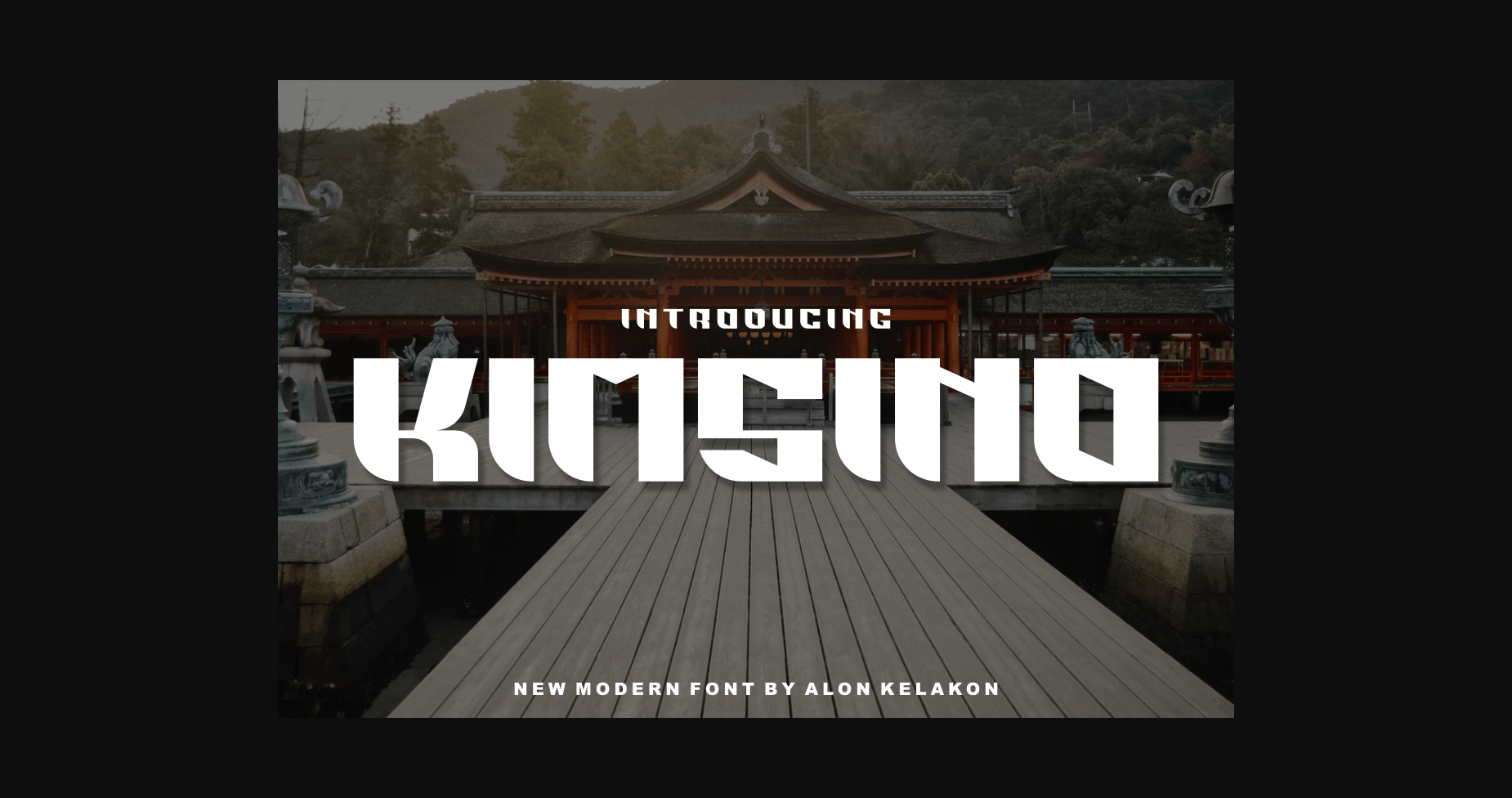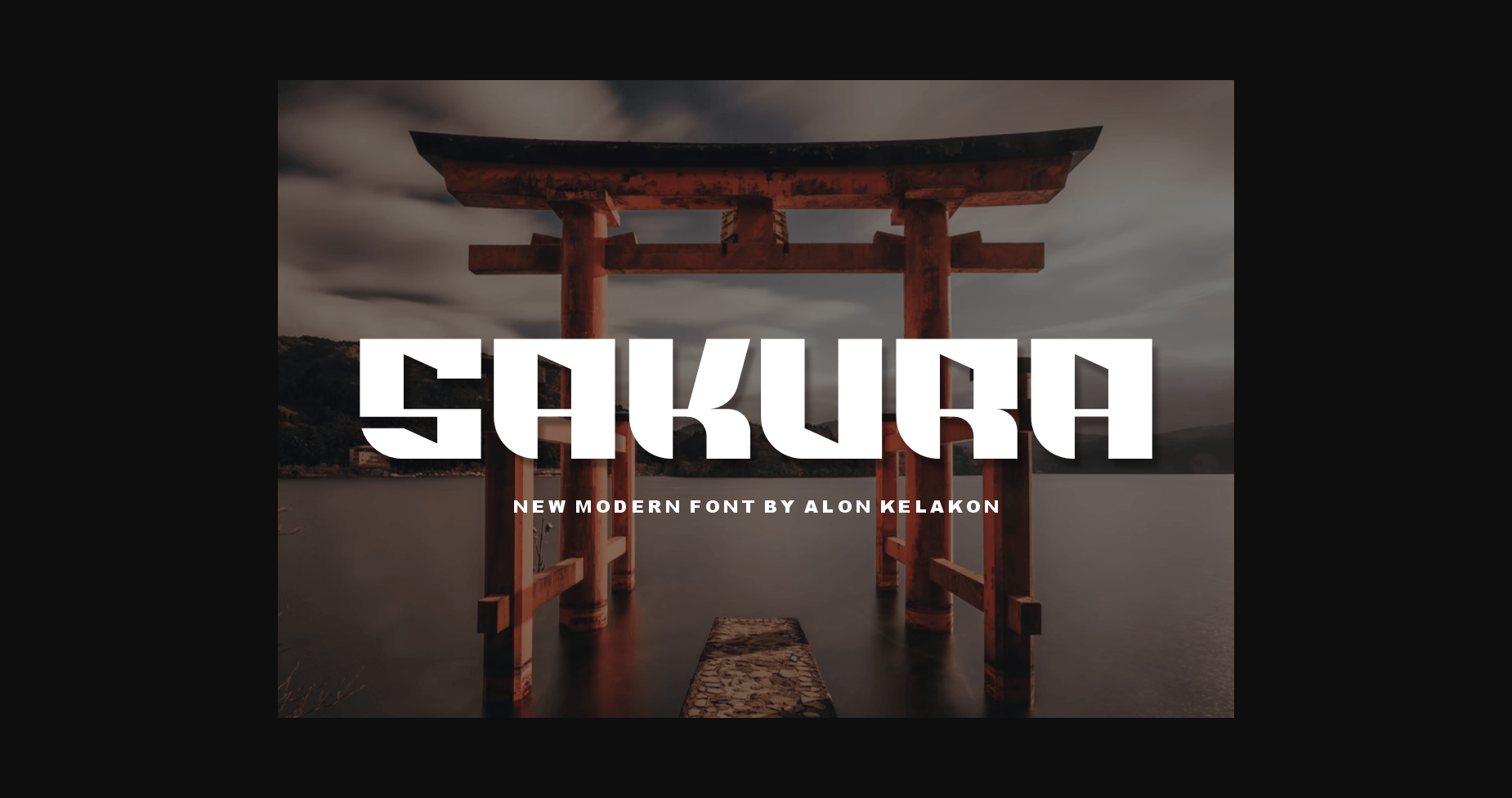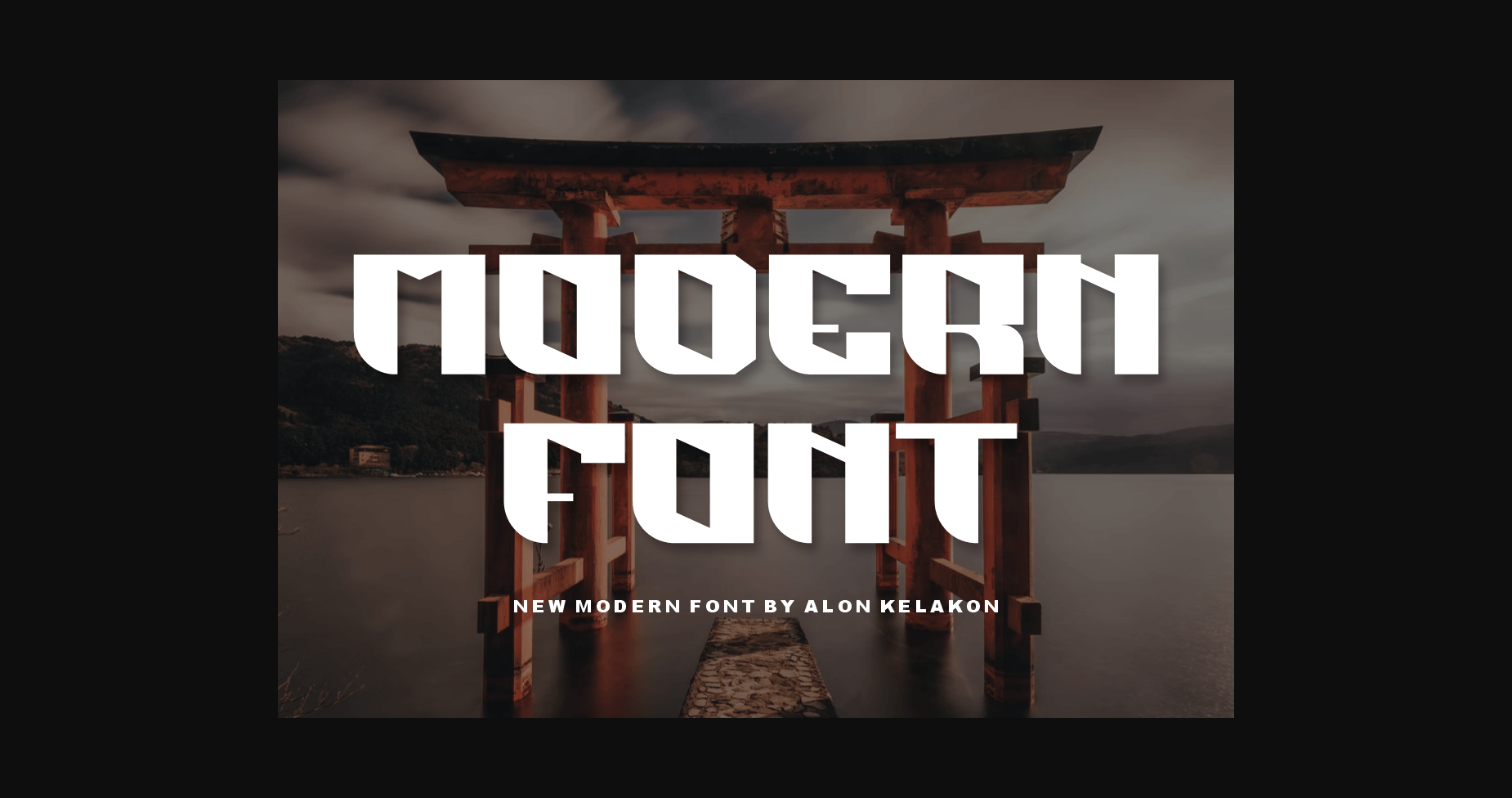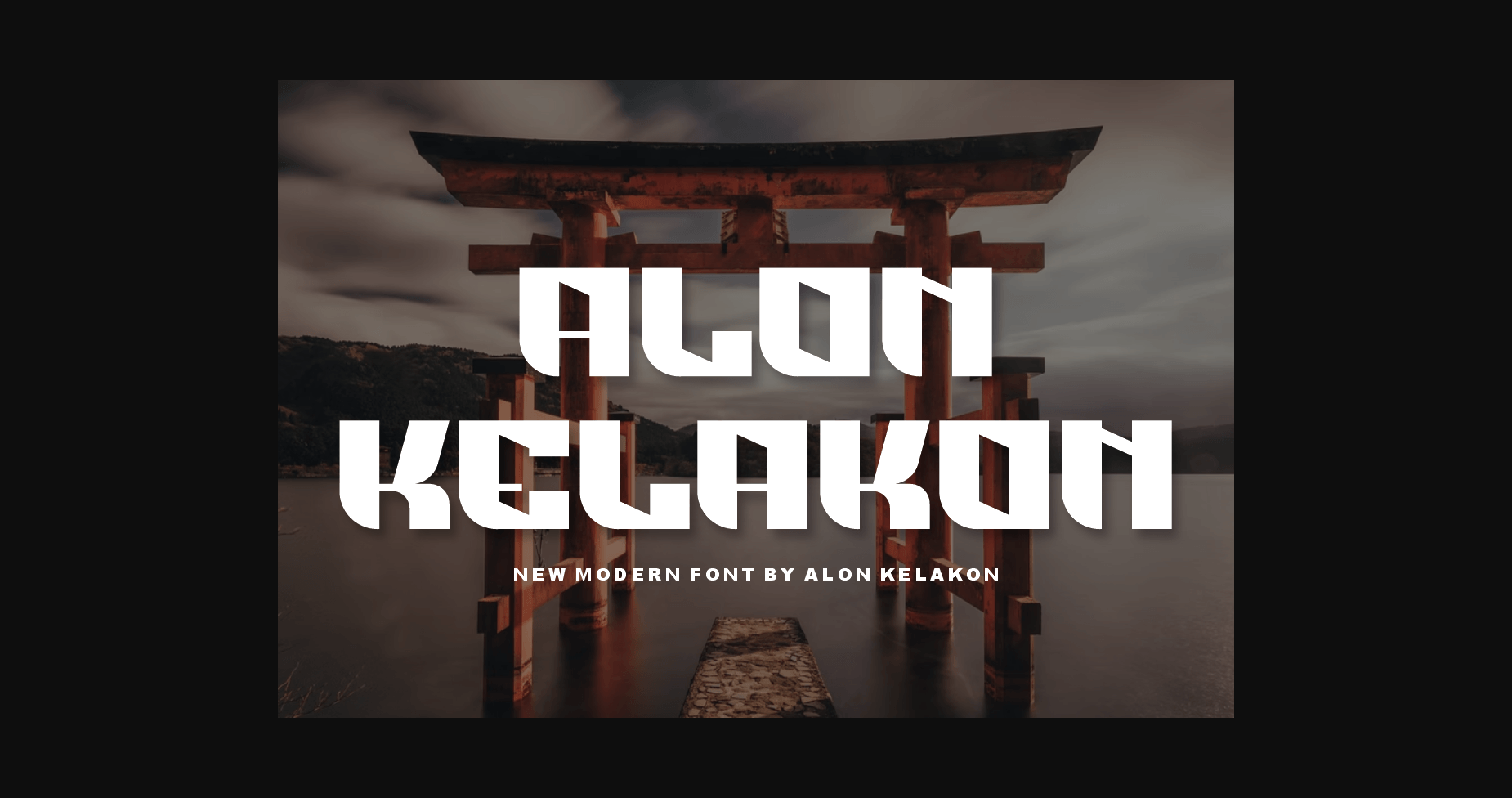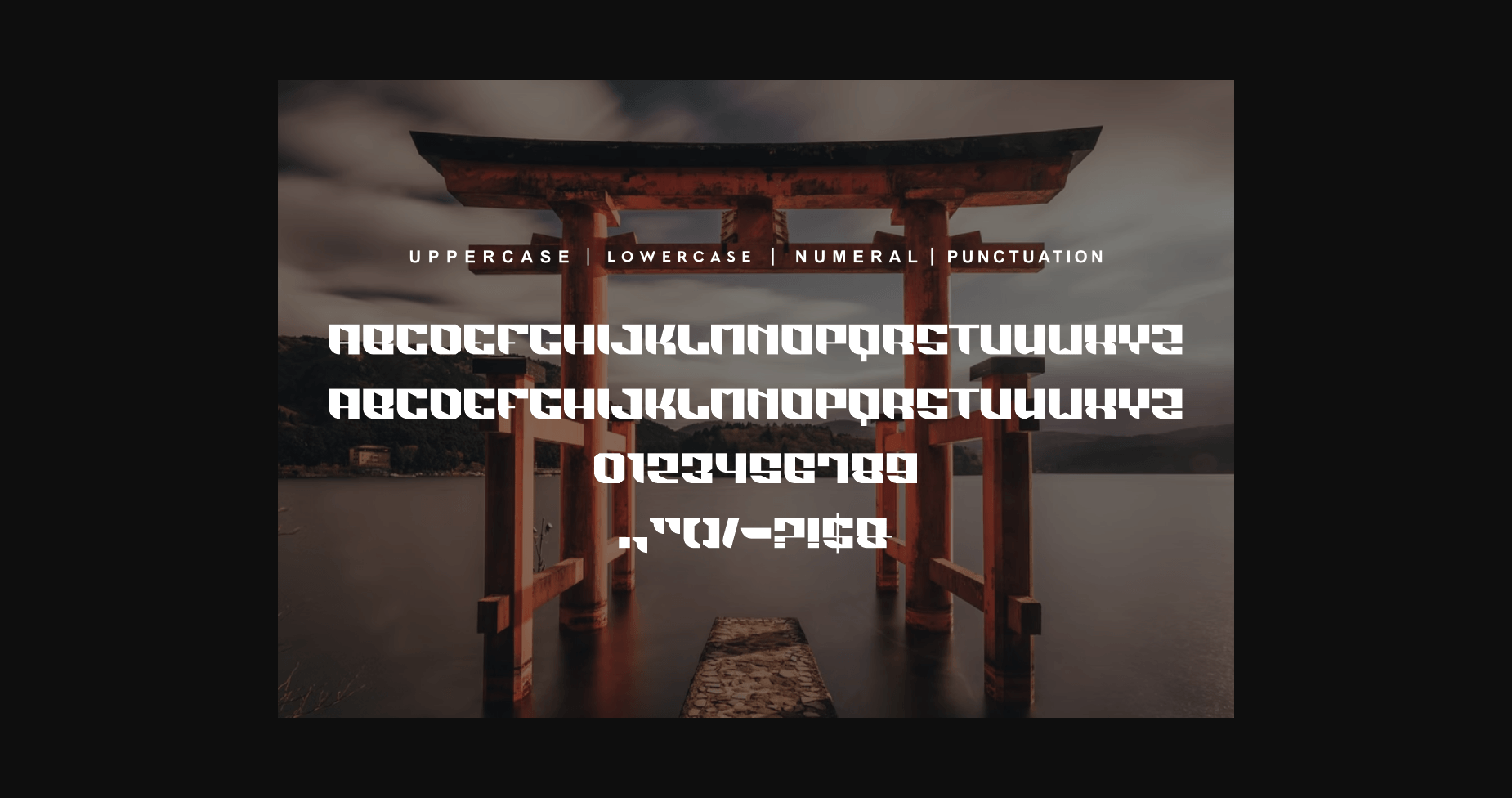
About Kimsino Font
Kimsino has a strong personality which makes it a perfect choice for display projects. Perfectly suited for a wide range of applications from branding and logos, to candy and food packages.